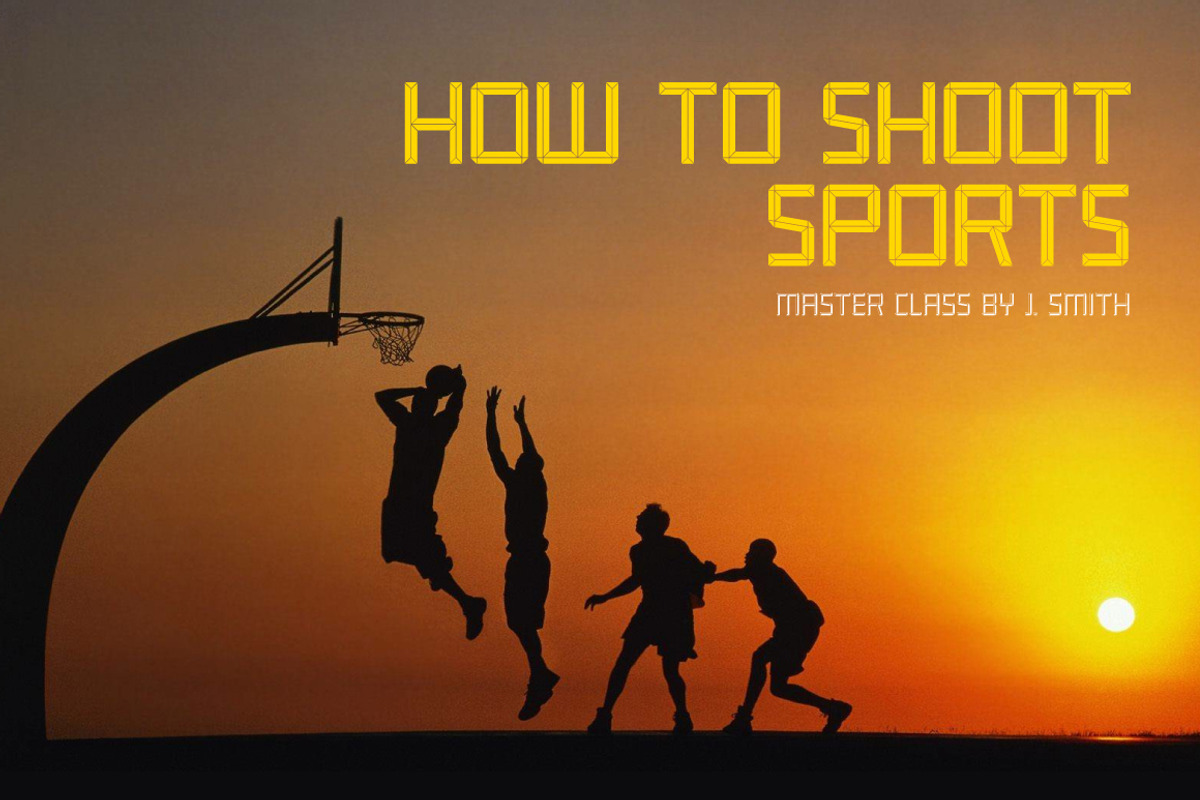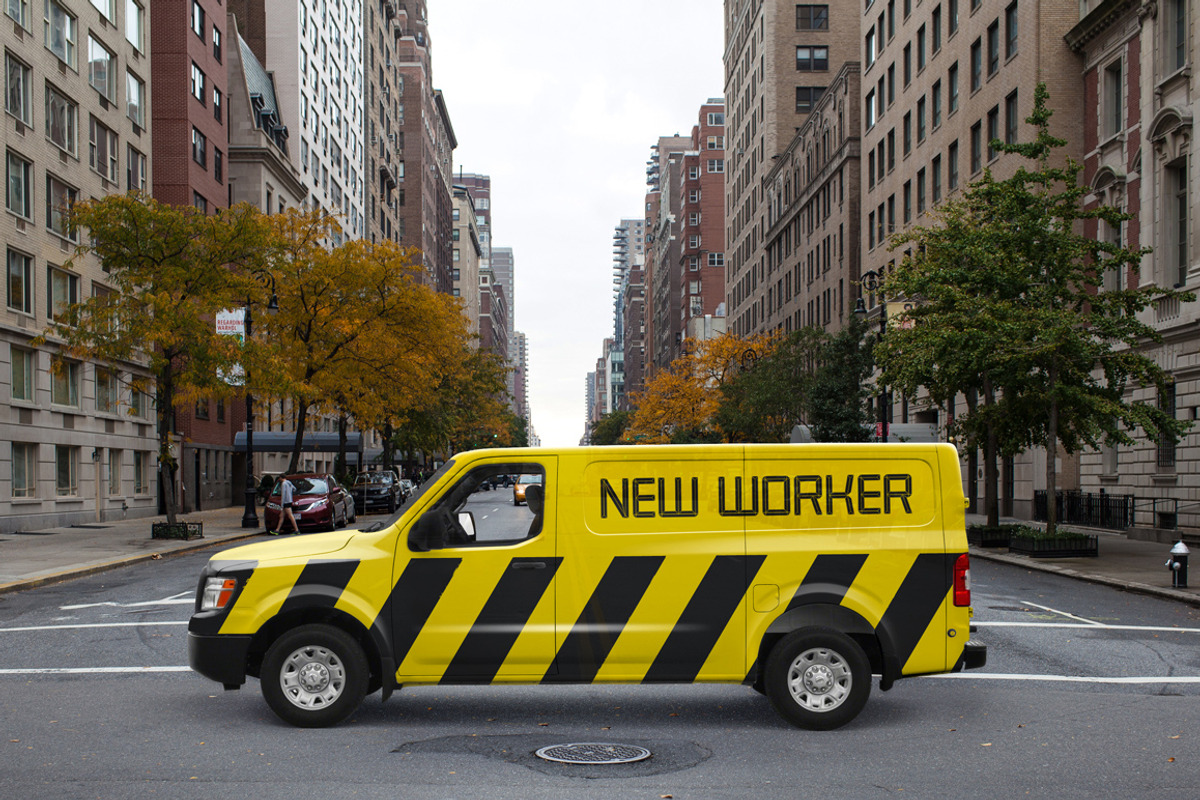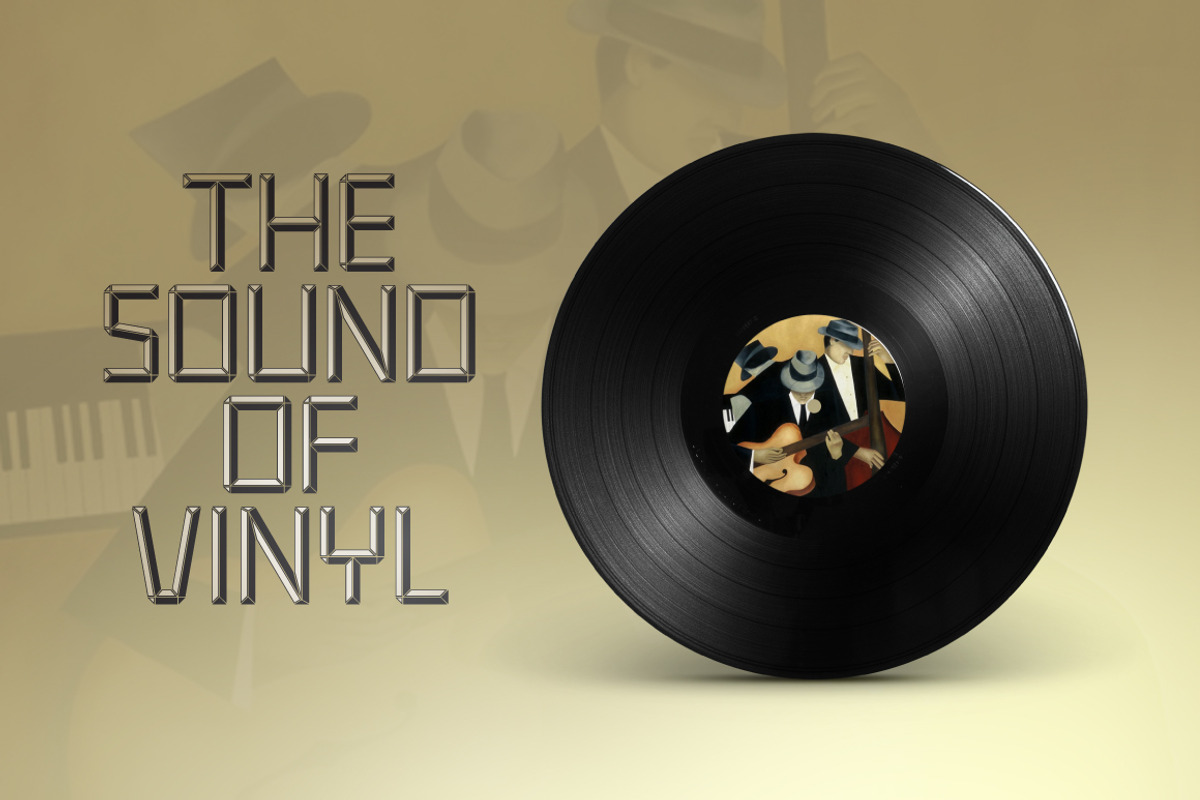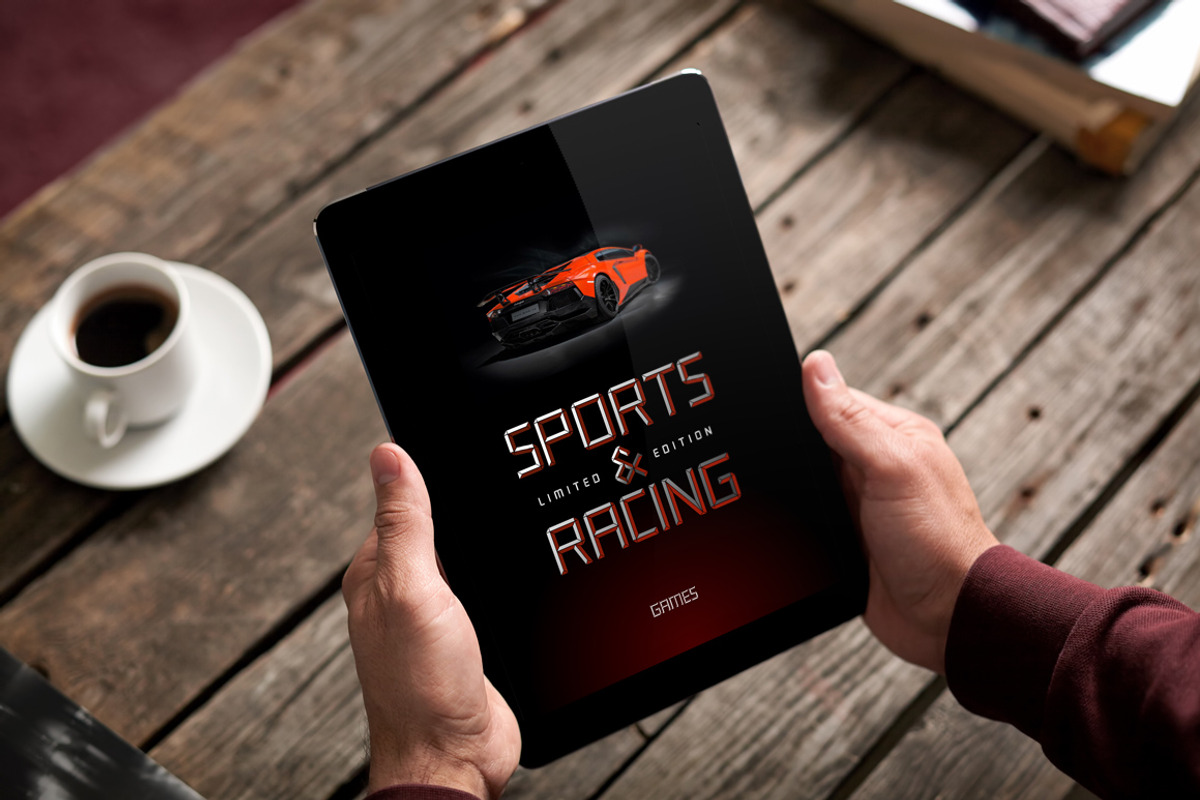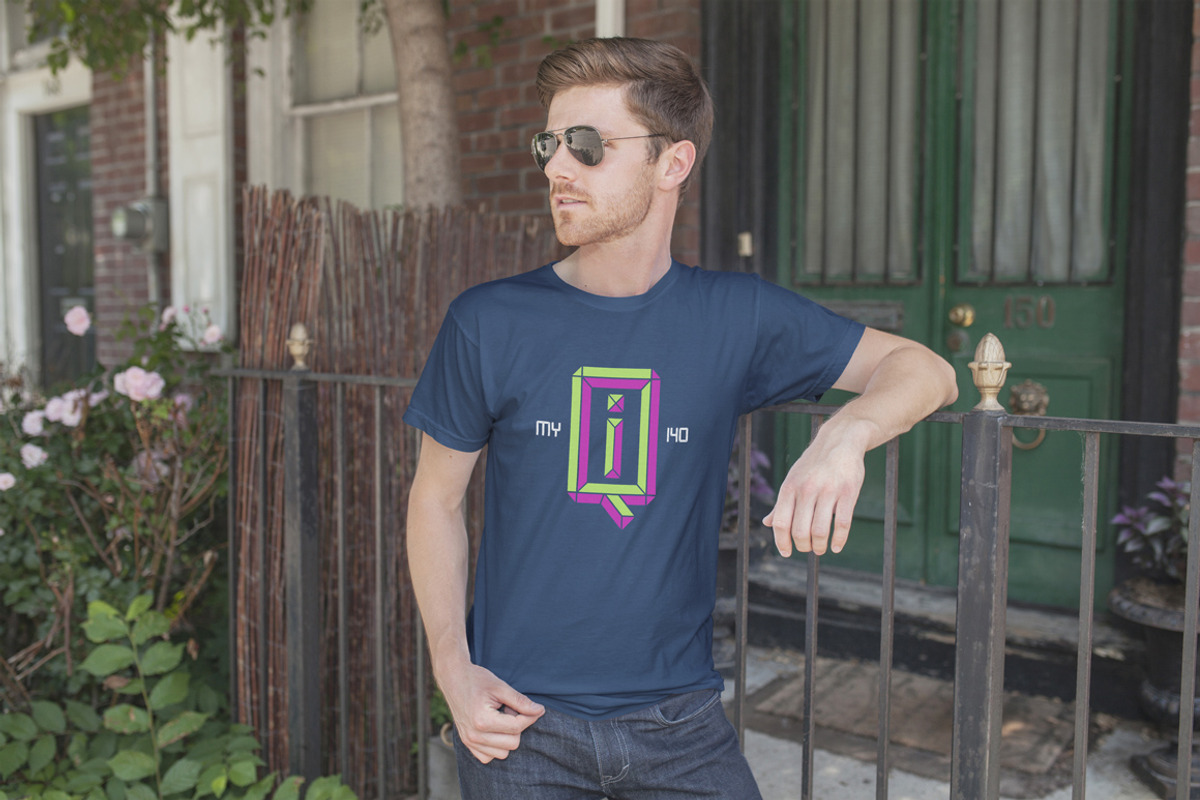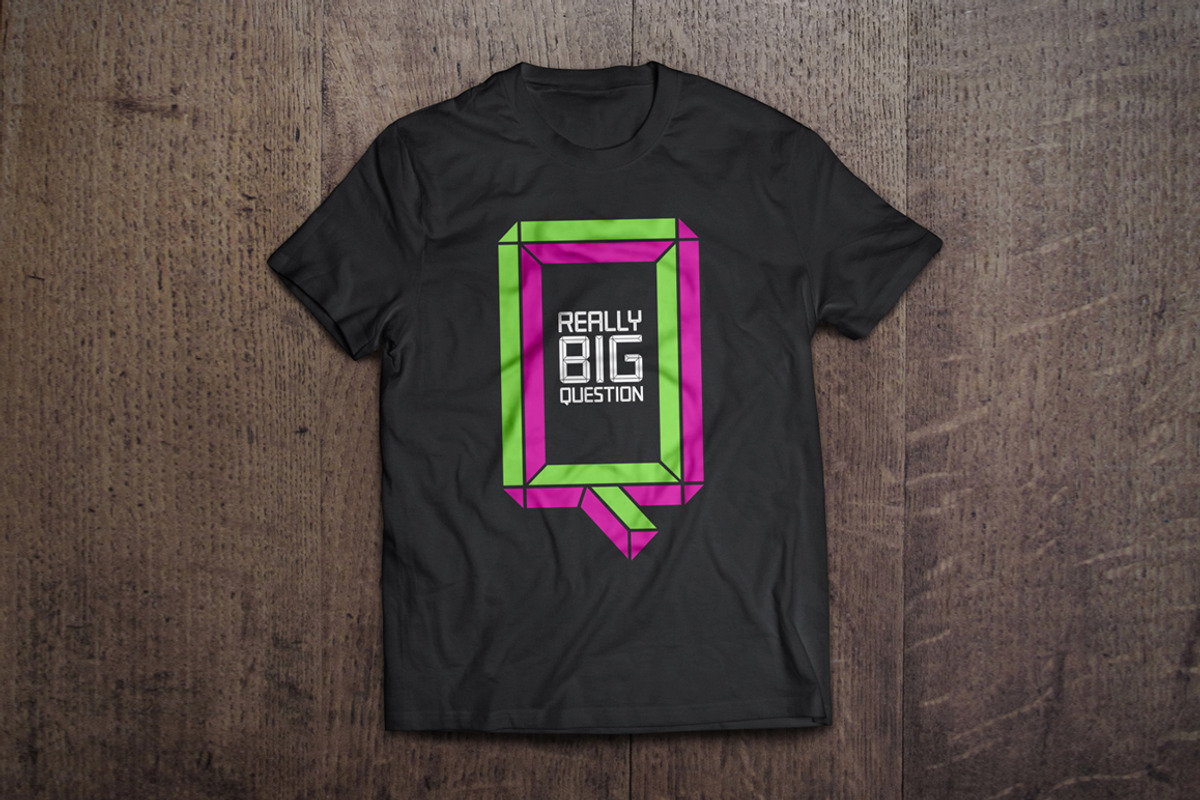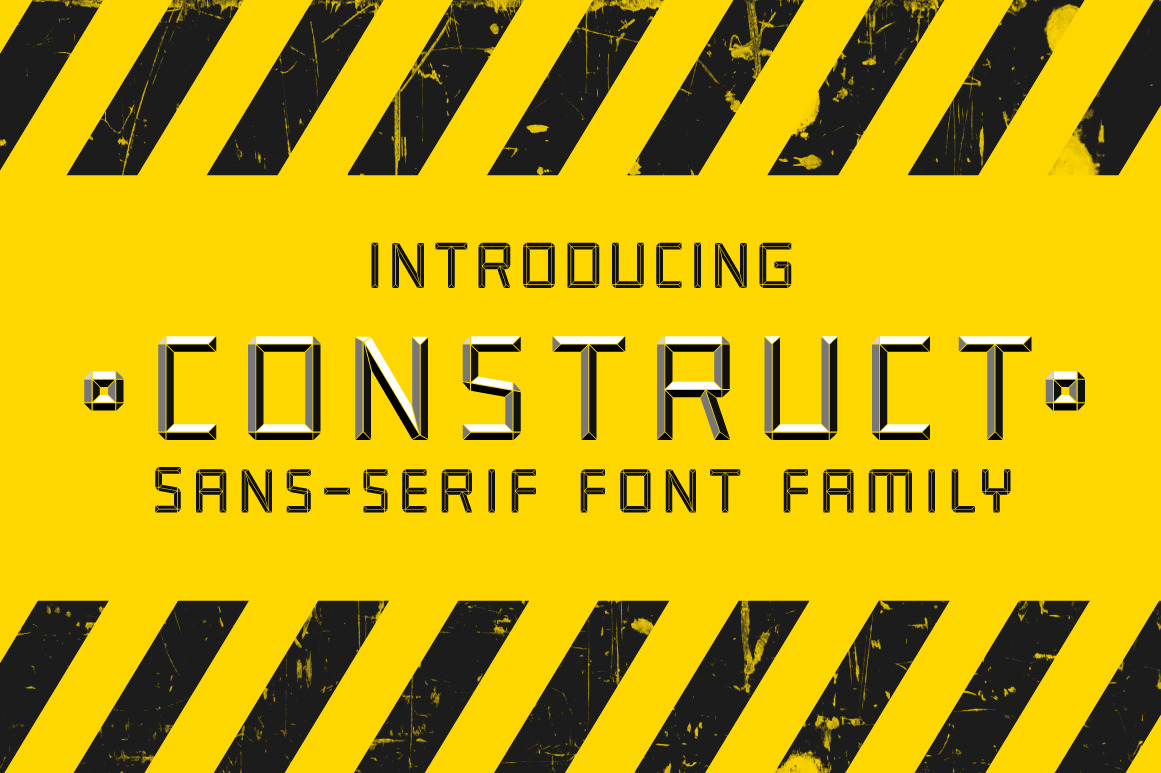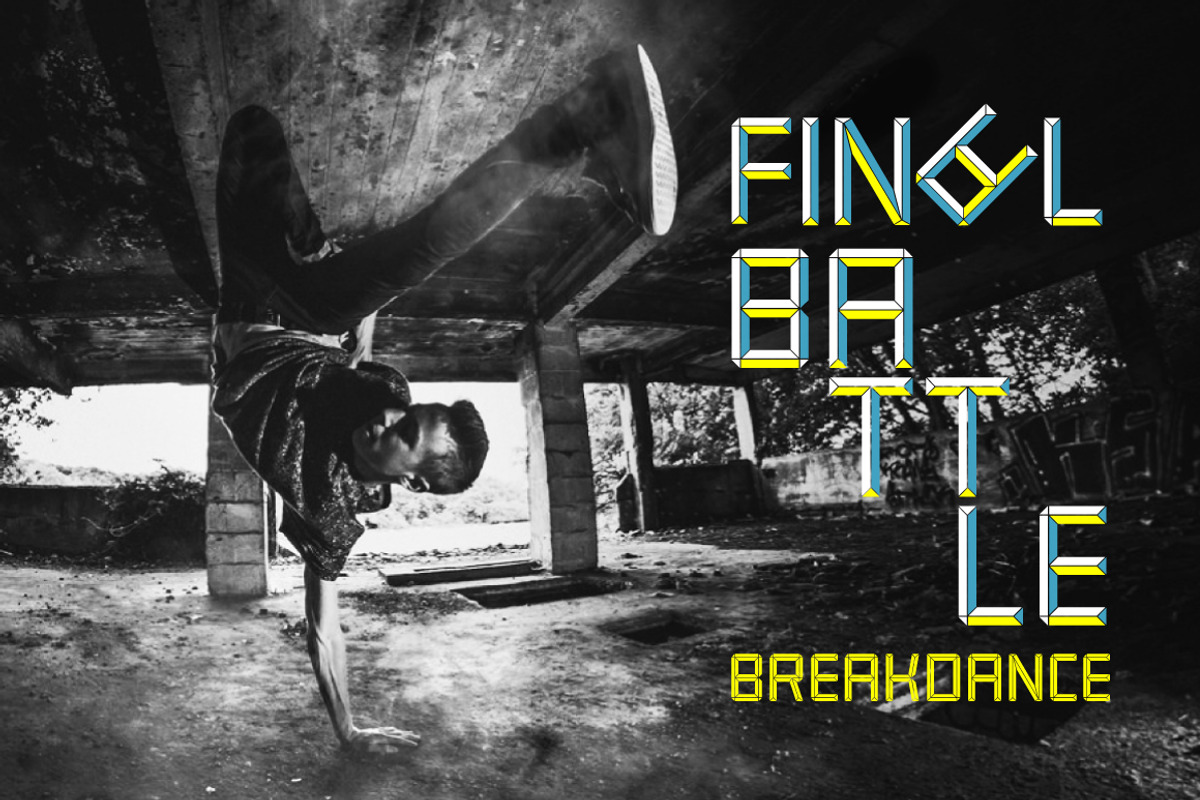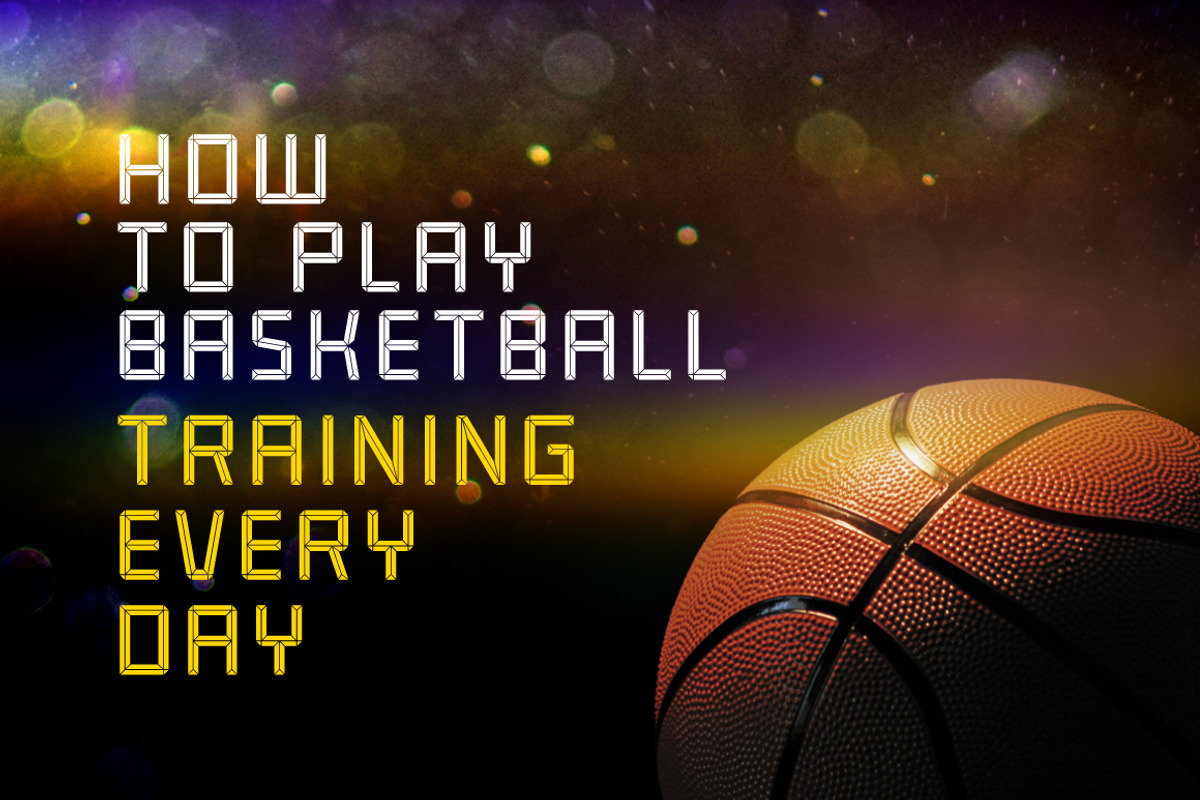
Construct family font
Introducing a new bold, sportive and industrial CONSTRUCT font family.
Perfect combination of 2 fonts (Light and Shadow) to create your own layered 3D headlines, eye-catching texts, logotypes, design, posters for sports, music, street culture, modern arts, industries and many more other themes.
2 more fonts (Emboss and Regular) have bold 3D effects thanks to their design and shapes.
Fonts have extensive Latin multilingual support, uppercase, small-caps, numbers and basic punctuations.